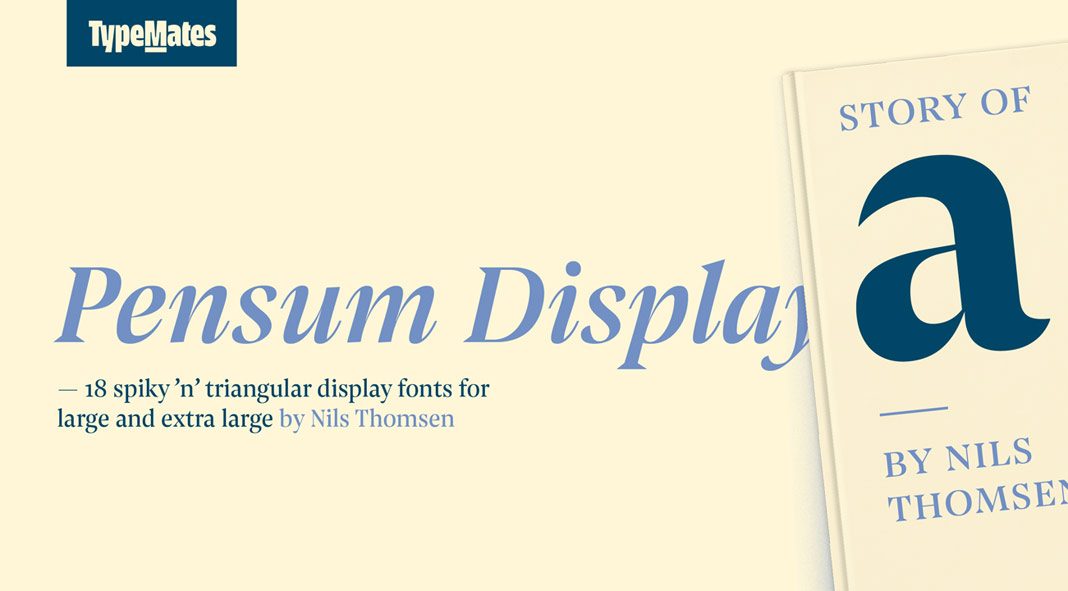
Pensum Display – the triangular and spiky companion to Pensum Pro.
Published only a few hours ago by German foundry TypeMates, Pensum Display is a striking serif font family for headlines and anything that asks for more characteristic typography. Consisting of 9 weights (ranging from Thin to Black) plus matching Italics for each weight, the family is the triangular and spiky companion to the text-workhorse, Pensum Pro. It has been designed in 2017 by Nils Thomsen. Based on a sharp, high contrast design with triangular serifs, the family is well suited for short text sections, headers, and titles. It is equipped with over 800 characters as well as a bunch of useful OpenType features. The Pensum Display font family is Adobe Latin 3 encoded, which results in a maximum of flexibility in terms of Latin language support. Please note, this highly professional font family is currently available as introductory offer, which means you can save 50% on the entire family (only for a limited time)! For further information, feel free to follow the link below.